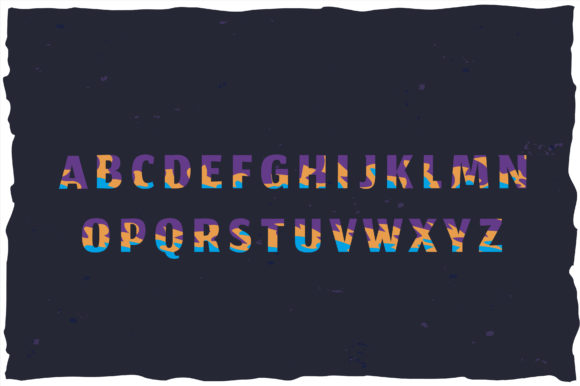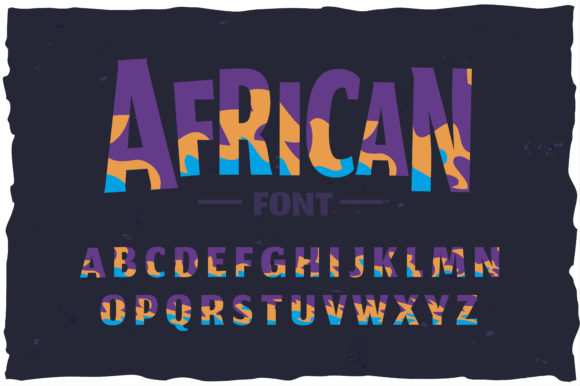
The Quest for the Perfect Font: Discovering African
Ah, the eternal search for the perfect font! I recall a particularly frustrating design session where I was working on a branding project for a new coffee shop. My client wanted a font that was playful, yet sophisticated; colorful, yet not too overpowering. I scoured font libraries and design blogs, but nothing seemed quite right. That was until I stumbled upon the African font. This cute color font has been a game-changer for my design projects, and I’m excited to share its unique features with you! 🎉
An Honest Review of African Font
- Unique and playful design that’s perfect for creative projects
- Colorful and vibrant, adding an extra layer of visual interest
- Supports OpenType features, glyphs, and stylistic alternates for added versatility
The Story Behind African Font
African Font was designed with the goal of creating a unique and playful font that would add a pop of color to any design. The designer, inspired by the vibrant cultures of Africa, aimed to create a font that was both fun and sophisticated. Through a combination of traditional and digital techniques, the African Font was born – a font that’s equal parts cute and colorful.